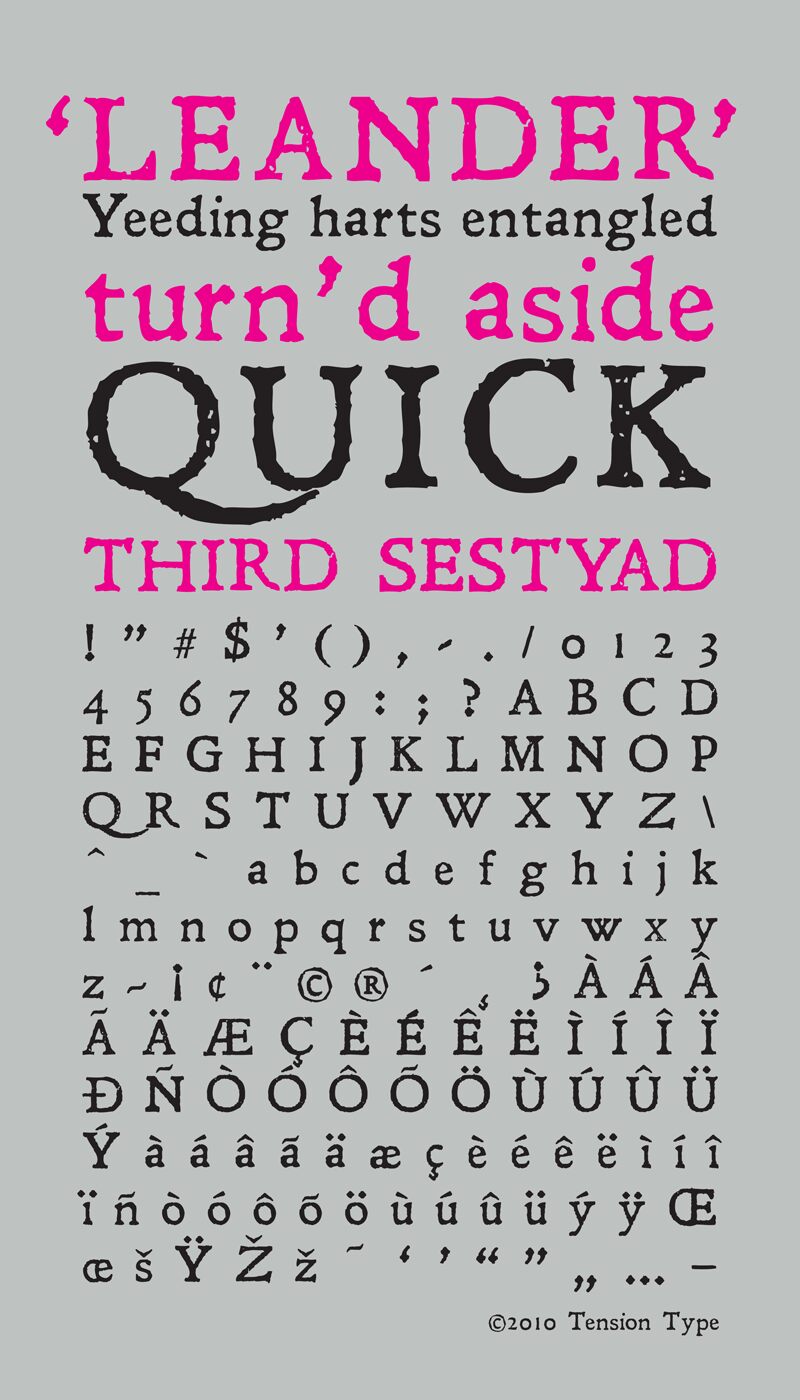
Leander from Tension Type is a free eroded old-school display font with the rough authority of weathered printing. Its broad serifs and uneven edges make the letters look stamped and worn. The forms remain sturdy and emphatic.
It is especially convincing on frontier-themed posters, where its battered texture can suggest aged playbills or handbills. The same distressed shapes suit whiskey packaging and roots-music merchandise, echoing woodcut illustrations, faded labels, and other period-style graphics.